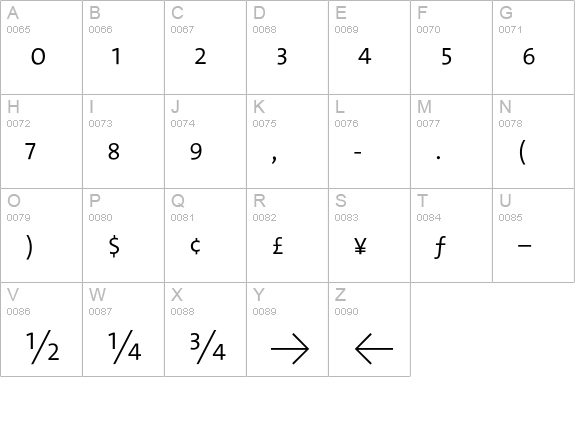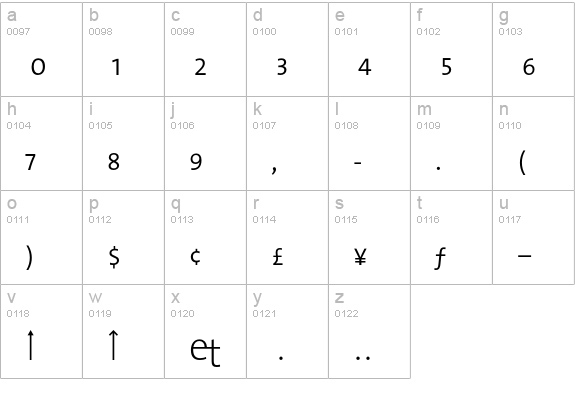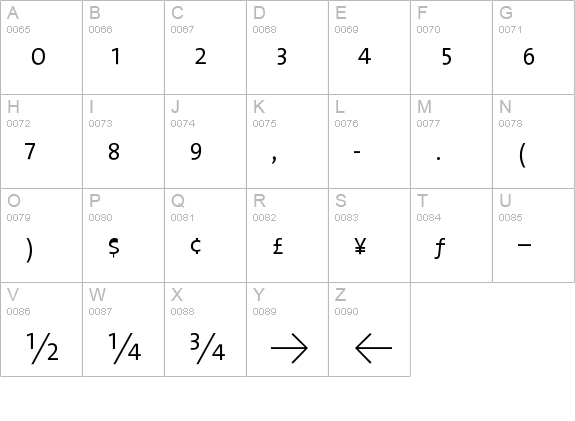
TheMix ExtraLight Expert Font Details
TheMix ExtraLight Expert is an airy, ultra-refined variant in the TheMix typeface family \xE2\x80\x94 well suited to minimalist headlines and refined display use.
TheMix ExtraLight Expert font is a stunningly elegant typeface that exudes sophistication and finesse. Its delicate and refined letterforms are meticulously crafted to effortlessly elevate any design project. With its clean lines and exquisite detailing, this font is perfect for creating polished and professional designs. TheMix ExtraLight Expert font offers a unique blend of modernity and timeless appeal. Its slender and graceful strokes add a touch of elegance, making it ideal for a wide range of applications including branding, advertising, packaging, and more. Whether you're designing a logo, creating a website, or crafting a stylish invitation, this font will effortlessly bring your vision to life. One of the best aspects of TheMix ExtraLight Expert font is that it is freely available to download at FontsMarket.com. This means that you can easily access and use this exceptional font without any restrictions. Whether you're a professional designer or a hobbyist, having access to high-quality fonts is essential, and TheMix ExtraLight Expert font offers just that. With its versatility and timeless appeal, TheMix ExtraLight Expert font is a must-have for anyone looking to elevate their design projects. Its effortlessly chic aesthetic and its availability for free download at FontsMarket.com make it a valuable asset for designers of all levels. So why wait? Enhance your designs today with the beauty and sophistication of TheMix ExtraLight Expert font.